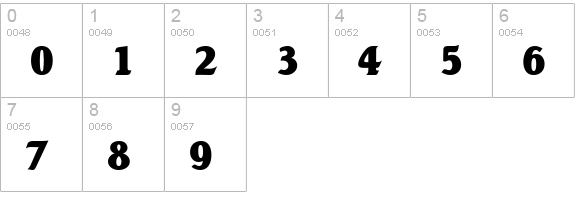
Seabird Heavy SF Bold is a heavy, high-impact variant in the Seabird typeface family \xE2\x80\x94 well suited to high-impact headlines, posters, and display advertising.
Seabird Heavy SF Bold font is a stunning typeface that effortlessly captures attention with its bold and assertive design. Its strong and sturdy letterforms exude a sense of confidence, making it perfect for headlines, logos, and impactful designs. With its generous curves and sharp edges, Seabird Heavy SF Bold font combines elegance with a touch of edginess, creating a versatile typeface that can adapt to various design styles. Whether you're working on a modern branding project or a vintage-inspired poster, this font will add a distinctive touch to your creations. Not only does Seabird Heavy SF Bold font offer exceptional aesthetic appeal, but it also provides excellent legibility. The carefully crafted letterforms ensure that each character stands out clearly, even at smaller sizes. This makes it an ideal choice for both print and digital projects, where readability is of utmost importance. One of the most remarkable aspects of Seabird Heavy SF Bold font is its availability as a free download at FontsMarket.com. This means that you can easily access and enjoy this remarkable typeface without any cost. It's a wonderful opportunity to enhance your design arsenal with a high-quality font that will elevate your projects to new heights. So whether you're a professional designer or a creative enthusiast, Seabird Heavy SF Bold font is a must-have in your font collection. Its bold and eye-catching design, combined with its excellent legibility, make it a versatile choice for a wide range of design projects. And the fact that it is freely available to download at FontsMarket.com makes it even more irresistible. Don't miss out on this incredible font and add it to your collection today.